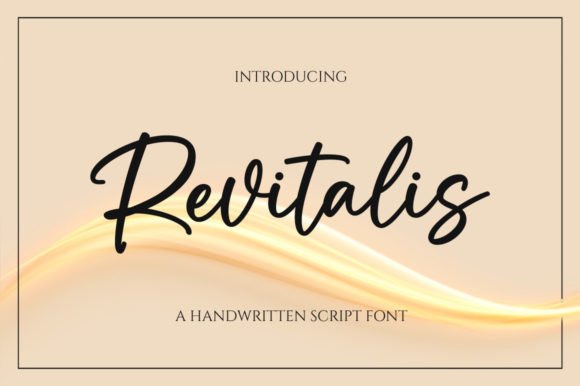
Lose yourself in the allure of Revitalis Font, a script font family that captivates hearts with its timeless elegance. Crafted with meticulous attention to detail and brimming with romantic flair, this font will transport you to a realm of love and beauty.
Revitalis Font's delicate and flowing curves evoke the essence of heartfelt sentiments, making it an ideal choice for creating love letters, wedding invitations, and other heartfelt expressions. Its graceful strokes exude romance and warmth, adding a personal touch to any design.
Unleash your creativity with this versatile font and let your imagination soar. Whether crafting logos and branding that speak volumes or adding a touch of charm to your quotes, Revitalis Font will elevate your designs to new heights.
With its PUA-encoded characters, you'll have effortless access to a world of glyphs and swashes, opening up endless possibilities for customization. Explore the vast array of options and create designs that truly capture the essence of your vision.
Let Revitalis Font take you on a journey of self-expression, where passion and creativity intertwine. Its timeless beauty will ignite your imagination and leave a lasting impression on those you share it with.
Transform your designs into expressions of love and elegance with Revitalis Font. Embrace the magic of handwritten charm and embark on a creative adventure that will leave you spellbound.